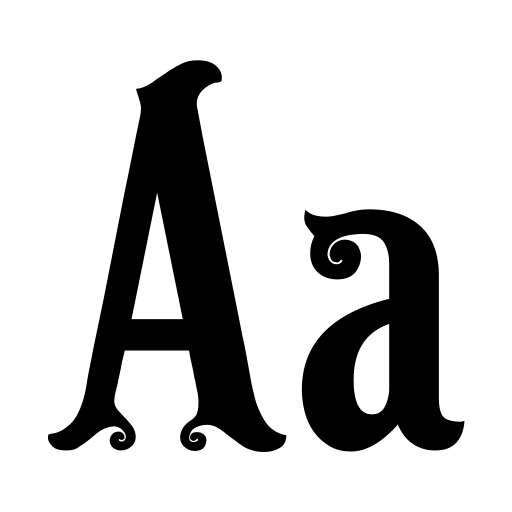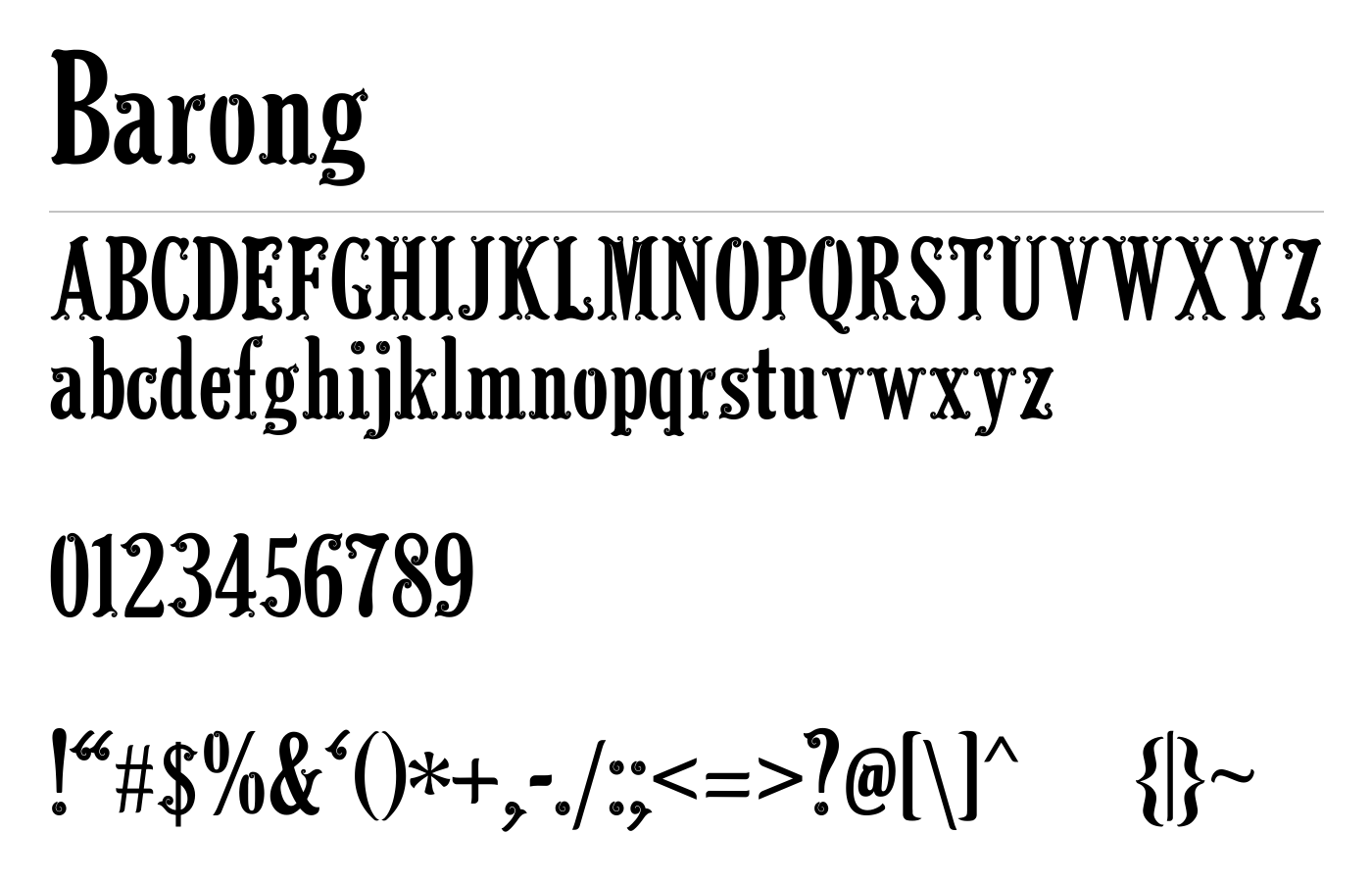
Barong is a bold serif font with a distinctive vintage and ornamental flair, featuring high contrast strokes and unique curled details on key characters that add personality and charm. Its tall, condensed letterforms and elegant serifs make it ideal for eye-catching headlines, logos, and branding that seek a classic yet playful look. This font works best in designs that want to convey a strong presence with a touch of old-world sophistication and character.
Barong Font
About Barong Font